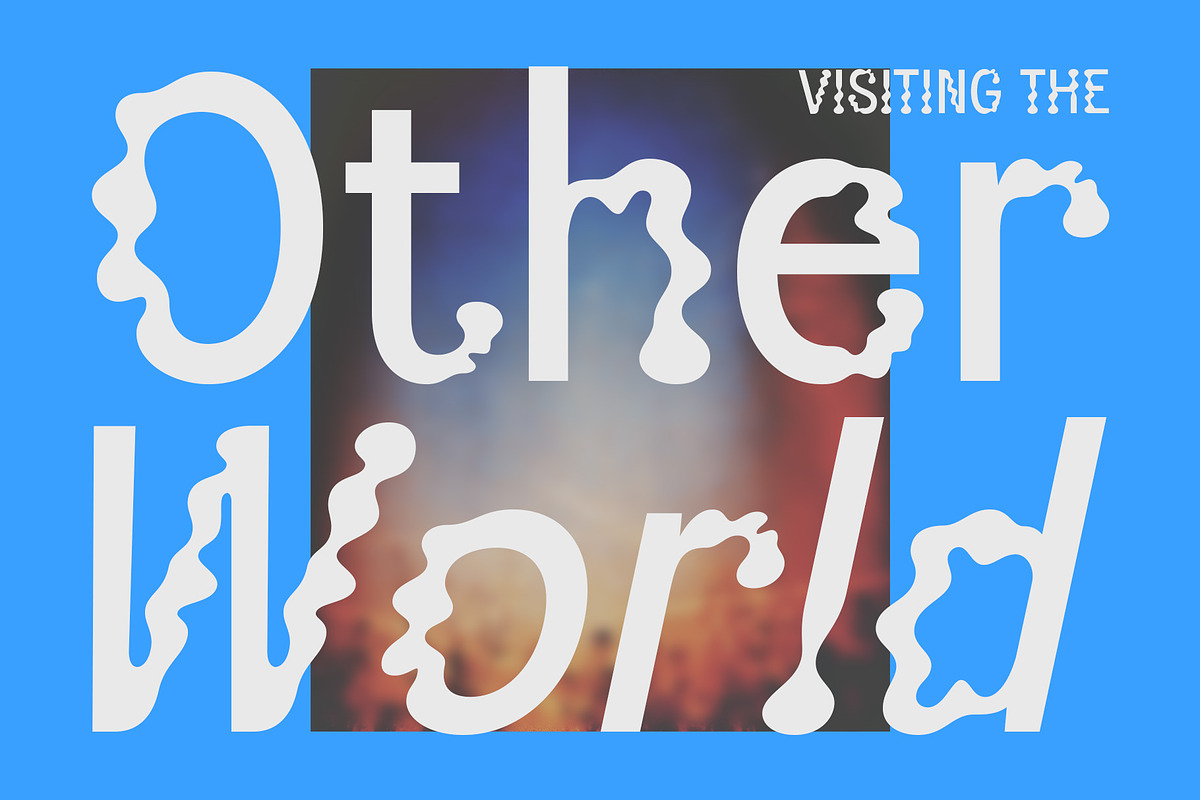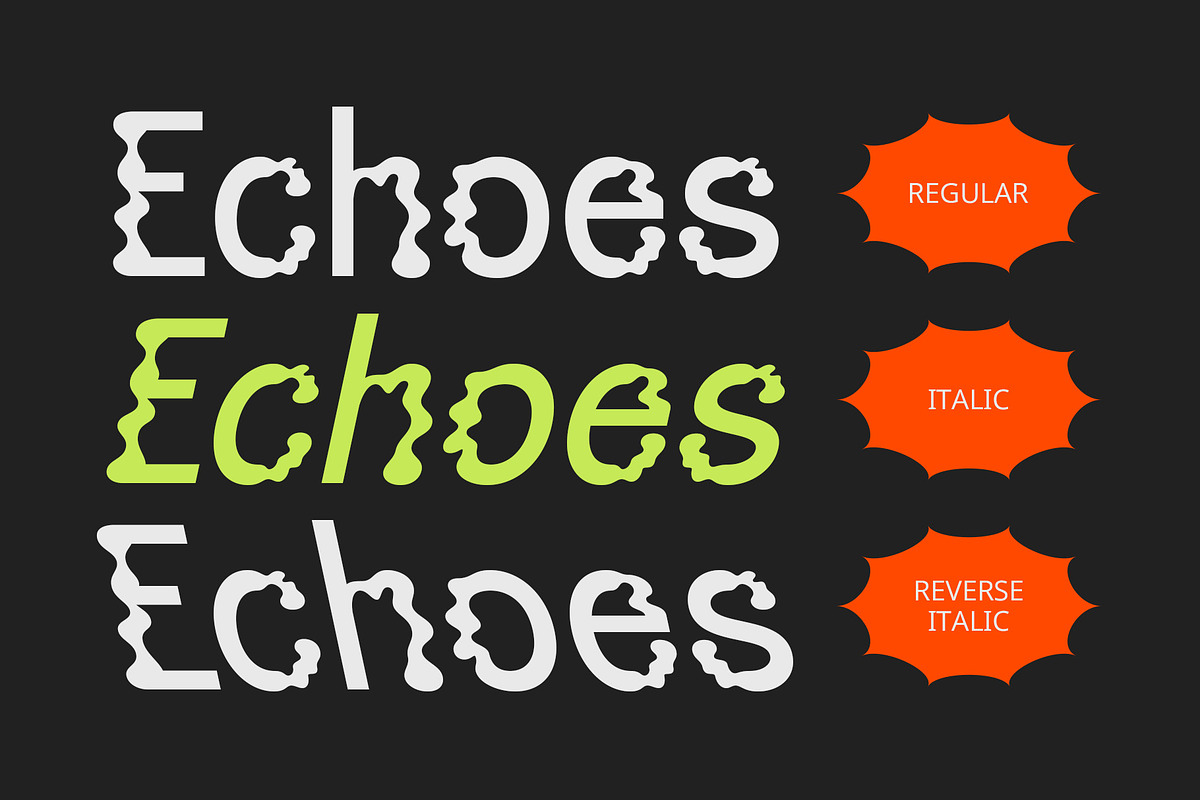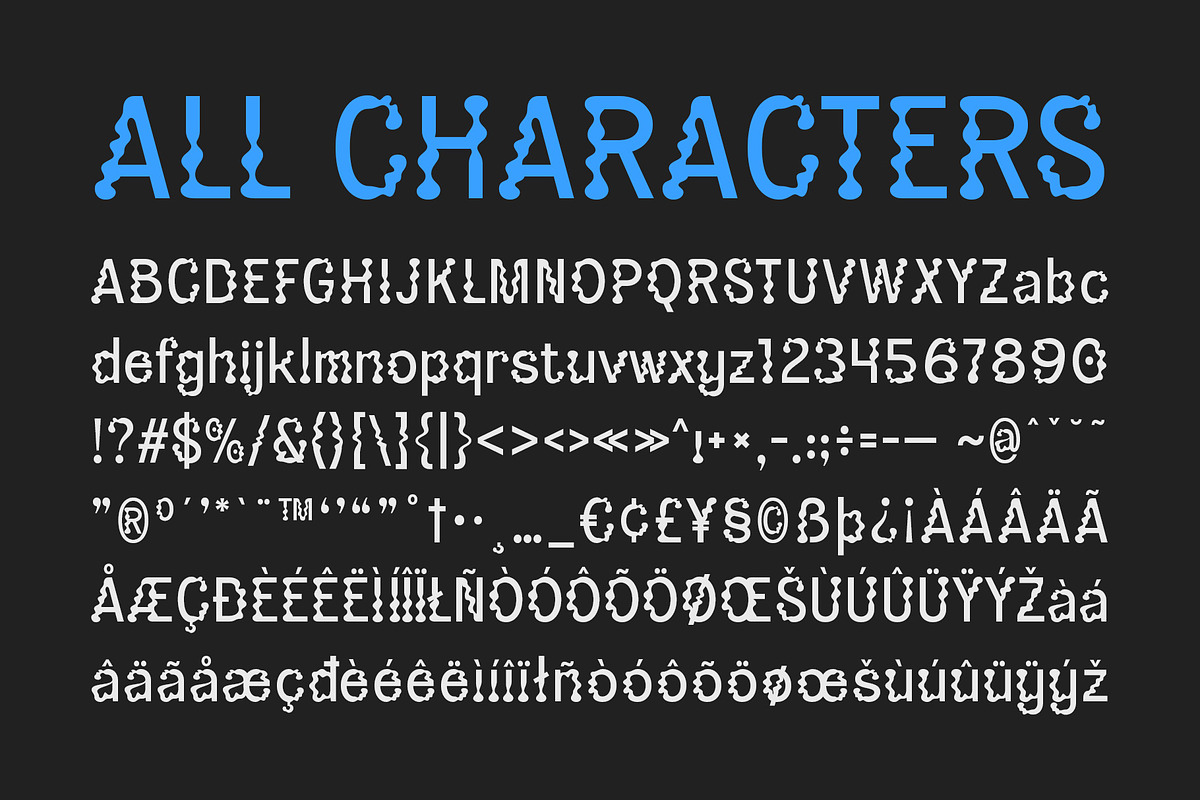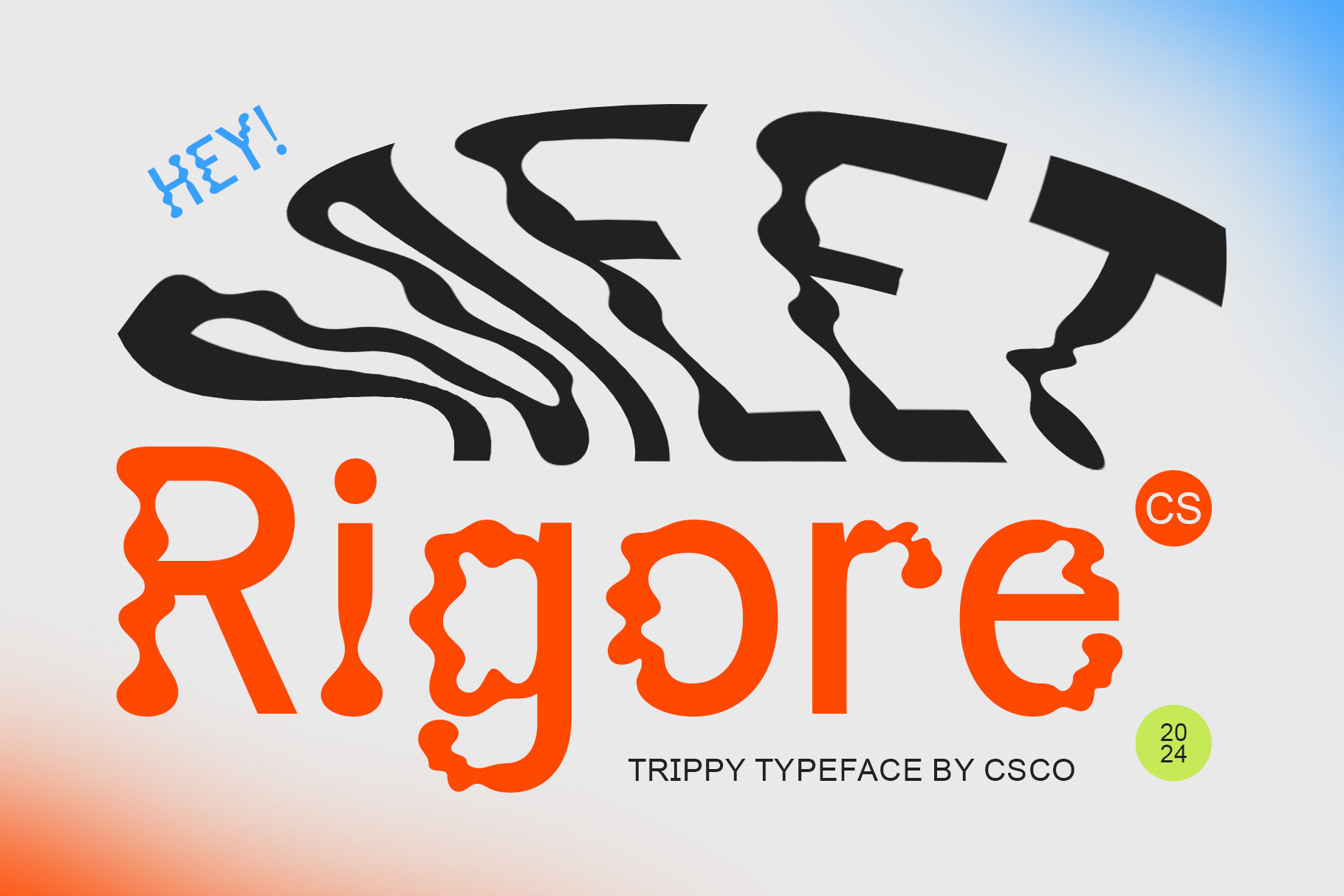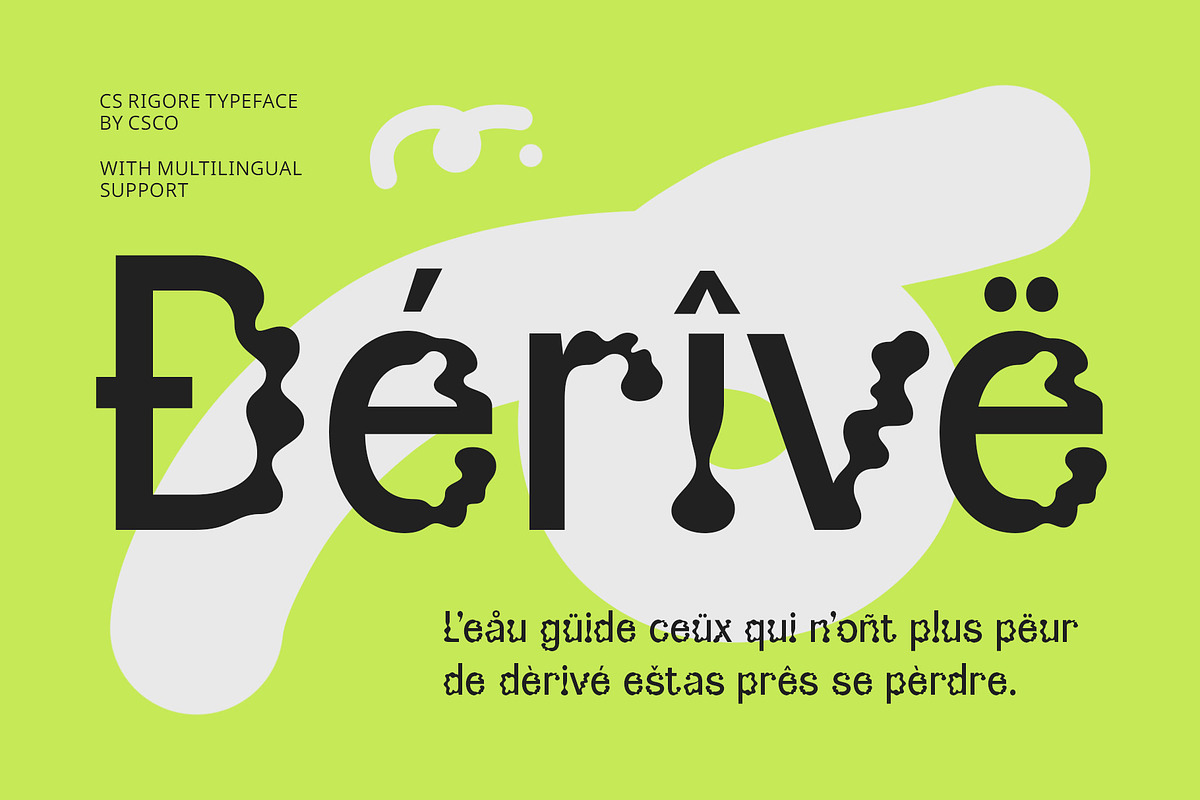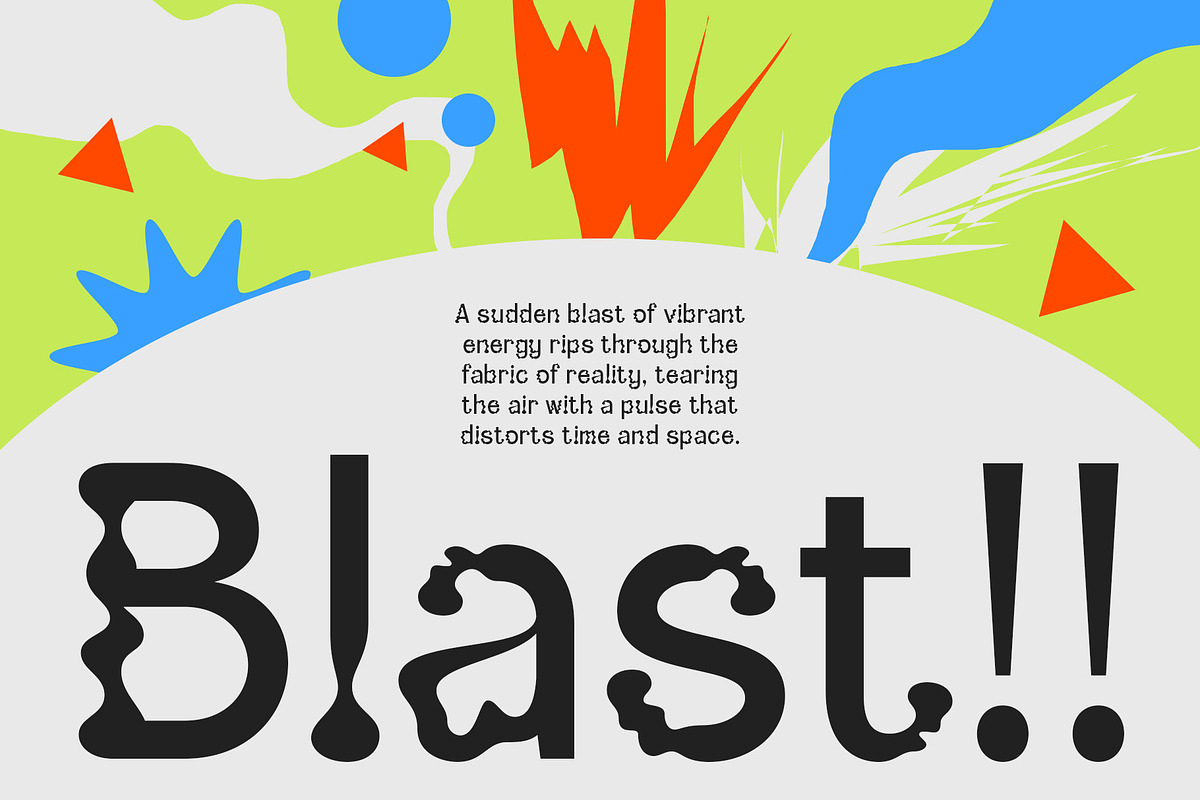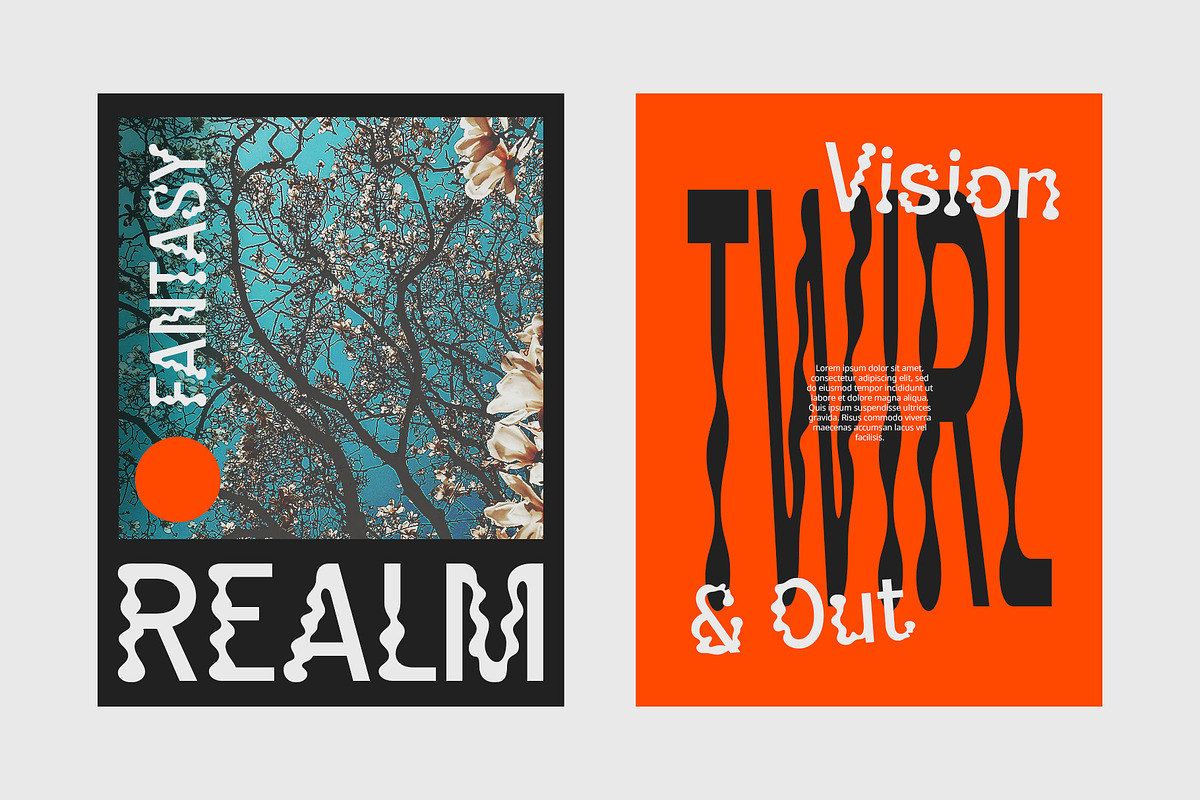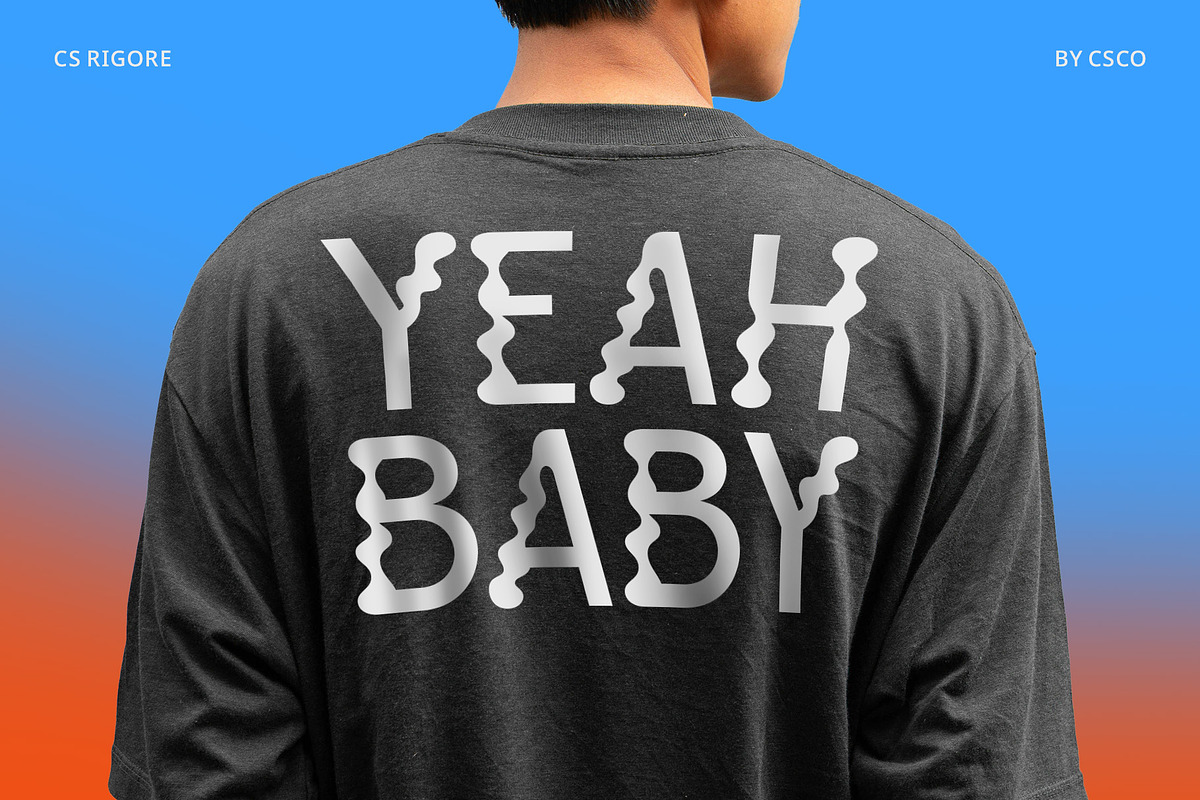
CS Rigore – Trippy Font
CS Rigore – Trippy Font: A Bold Journey into Psychedelic Expression
Dynamic and Irregular Design CS Rigore is a modern display font that pushes the boundaries of conventional design with its trippy, irregular shapes and energetic aesthetic. The letters appear distorted, curved, and fragmented, creating the sensation that the text is in motion, transforming, or even spiraling. This dynamic, bold design allows the font to exude a sense of fluidity, offering a visual experience that’s both captivating and lively.
Playful, Funky, and Unconventional Adorned with quirky elements like playful curves, patterns, and vibrant color effects, CS Rigore embraces the art of freeform creativity. Its irregular, distorted structure makes it stand out, capturing attention through its unapologetic eccentricity. The font’s funky vibe channels an atmosphere of fun, freedom, and bold self-expression, making it ideal for projects that aim to break from the ordinary.
Embodying Freedom and Creativity With its unconventional, free-flowing design, CS Rigore symbolizes a sense of boundless creativity. The font’s irregularity and playful energy reflect a spirit of untamed artistic expression and rebellion against traditional norms. It’s a perfect fit for projects that seek to celebrate individuality and creativity, offering a visual style that evokes a sense of joyful chaos and bold experimentation.
- CS Rigore Regular
- CS Rigore Italic
- CS Rigore Reverse Italic